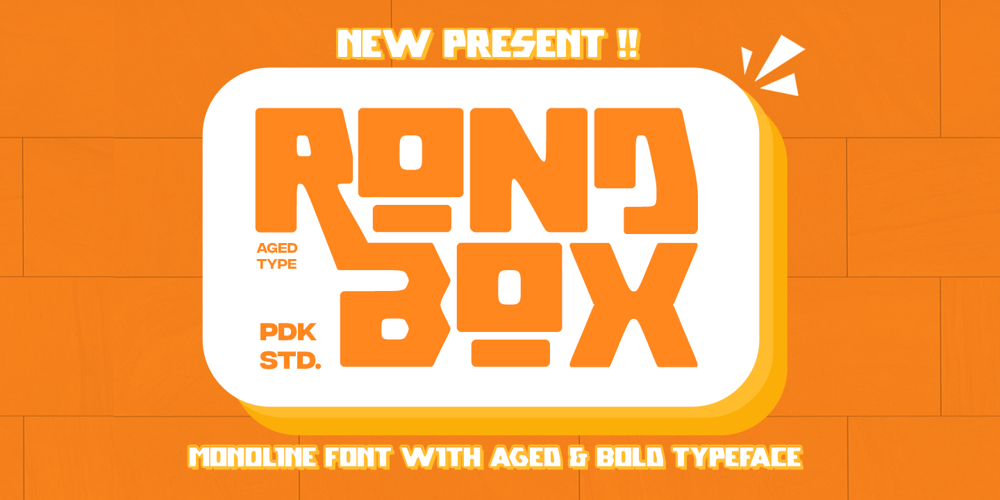
Rond Box
Rond Box font
Rond Box Font Family was designed by Sagara Nararya and published by Pandeka Studio. Rond Box contains 1 styles and family package options. Introducing Rond Box – a dynamic, extra-bold font designed to make your brand stand out with unmatched strength and charisma.Rond Box is a heavyweight typeface elevates your logo, making a memorable impact with its bold strokes and powerful characters. The thick, solid letterforms exude confidence and durability, perfect for brands aiming to convey strength, authority, and a bold identity.Rond Box is your go-to for commanding attention and leaving a lasting impression in any context.What’s you get? Rond Box Main Files 30 More Unique Ligatures Unique letterforms Works on PC & Mac Numeral & Punctuation Multilingual Support Currencies Simple Installations Accessible in the Adobe Illustrator, Adobe Photoshop, Microsoft Word even work on Canva PUA Encoded Characters Fully accessible without additional design software. Feel free to follow, like and share. Thanks so much for checking out my shop!Have a great day!Pandeka Studio